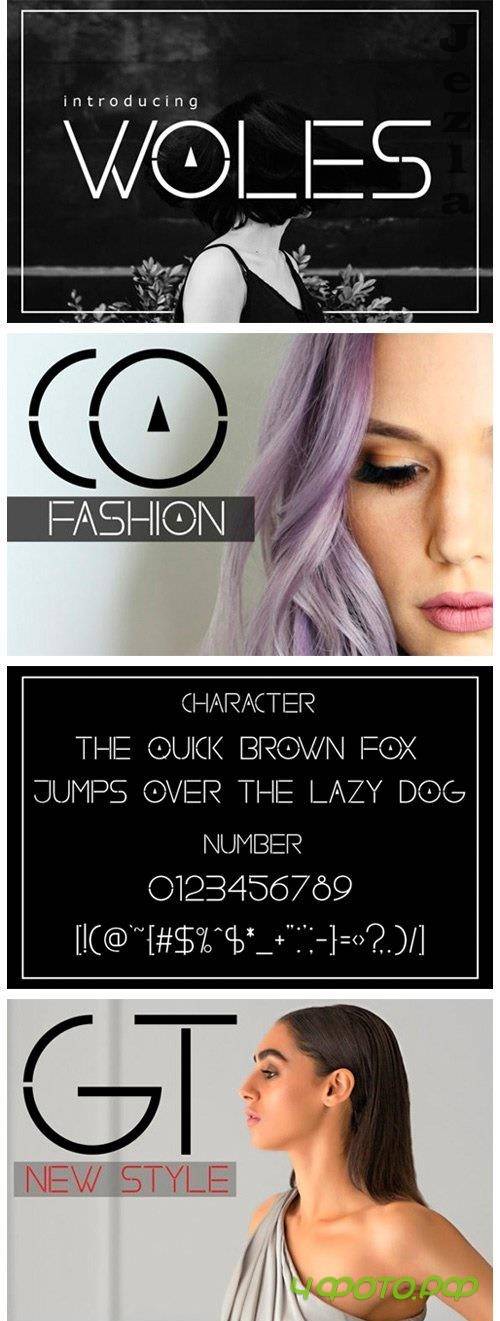
Woles Font
Woles embodies quirkiness and authenticity. This enchanting display font will turn any creative idea into a true standout. Get creative with its unique look, and use it to brighten up any crafting project!